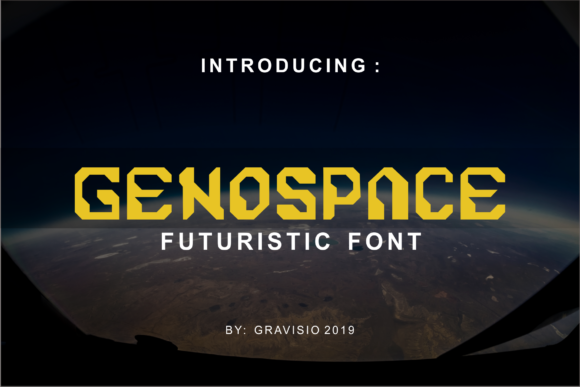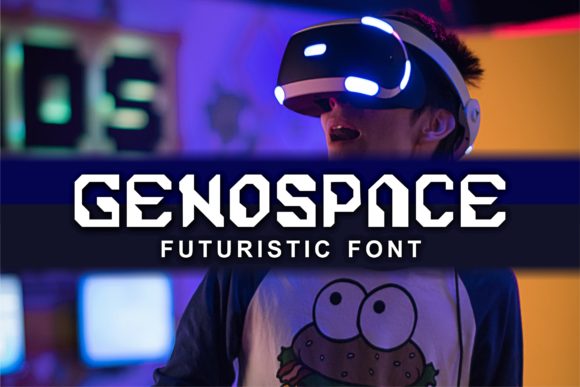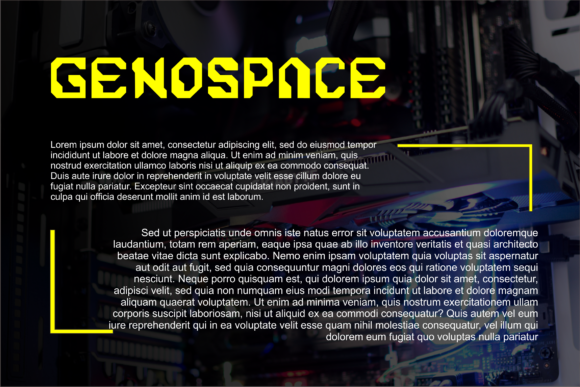
Geospace features a unique robotic style that celebrates all things Science Fiction. Get inspired by its unique charm, and turn any design project into a true standout!